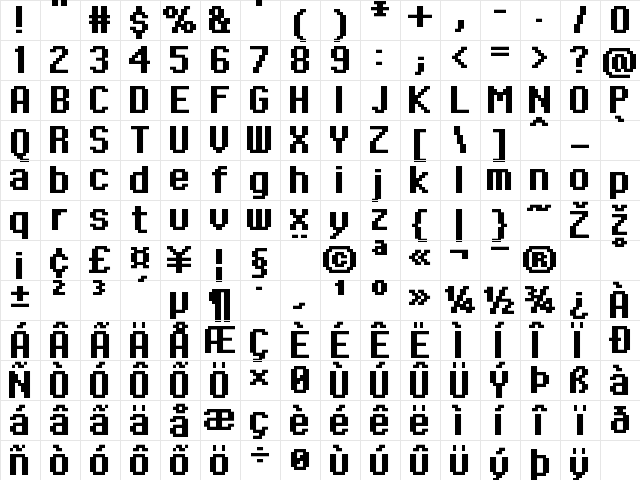
FFF Executive Bold Extended Regular Font Preview
FFF Executive Bold Extended Regular
FFF Executive Bold Extended Regular Font Details
Design Context for FFF Executive Bold Extended Typeface
FFF Executive Bold Extended offers clean, dependable letterforms without strong stylistic allegiance, making it a practical choice for designers who need flexibility. Its bold stroke weight gives it real presence on the page.